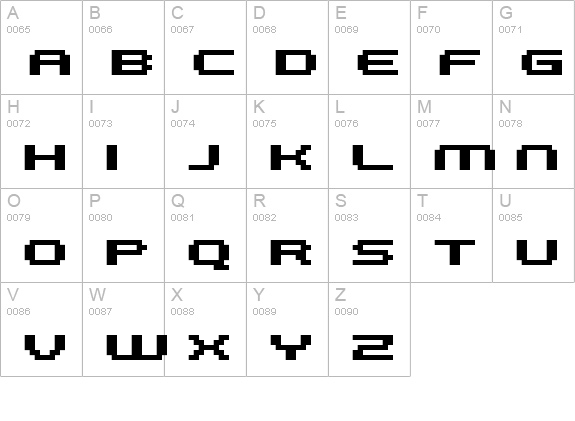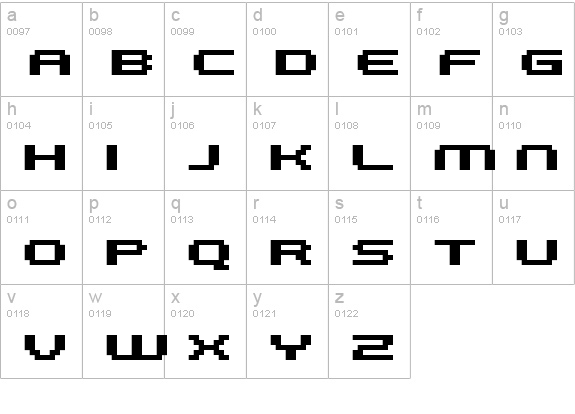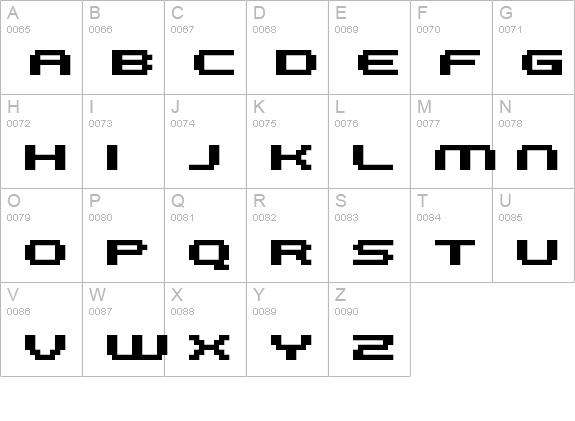
FFF Galaxy Bold Extended Font Details
FFF Galaxy Bold Extended is a strong, high-contrast, extended-width variant in the FFF typeface family \xE2\x80\x94 well suited to headlines, attention-grabbing titles, and strong calls-to-action.
The FFF Galaxy Bold Extended font is a striking and versatile typeface that commands attention with its bold and modern design. Perfect for making a statement or adding a touch of sophistication to your projects, this font exudes confidence and style. With its extended characters and clean lines, FFF Galaxy Bold Extended is ideal for headlines, posters, logos, and more. Whether you're designing for print or digital media, this font will ensure your message stands out and makes an impact. Best of all, FFF Galaxy Bold Extended is available for free download at FontsMarket.com. So you can elevate your designs without breaking the bank. Don't miss out on this opportunity to enhance your projects with a high-quality font that is both bold and beautiful. Download FFF Galaxy Bold Extended today and take your designs to the next level!